Fonts on Friday: Influenced by the ’70s
The fonts featured in this week’s installment have a decidedly ’70s vibe. The type and lettering of the ’70s often had a look and feel that today we might associate with the social change that started in the ’60s. Think of the revival of Cooper Black, a chunky face that looks like it had just been liberated from its girdle.
Two designers of that era helped define the aesthetic: Ed Benguiat and Herb Lubalin.
Benguiat designed faces for Photo-Lettering Inc. as well as International Typeface Corp. (ITC), the co-founder of which was Herb Lubalin, an influential letterer and logo designer. I won’t get in the careers of these two men — Benguiat most recently collaborated with House Industries on a collection of fonts; Lubalin died in 1981 — as much has been written about them.
I mention Benguiat and Lubalin in the context of two contemporary typefaces: Bookmania by Mark Simonson and Herbie by The Infamous Foundry (TIF).
Bookmania is a tribute to Benguiat’s Bookman (itself a revival) that he drew in 1975 and that enjoyed new popularity as one of the first PostScript fonts on the Apple LaserWriter.
Simonson calls his Bookmania a revival, which it certainly is, but it also expands the font as a result of OpenType. For example, it has more than 680 swash characters and 35 discretionary ligatures, plus plenty of alternates.
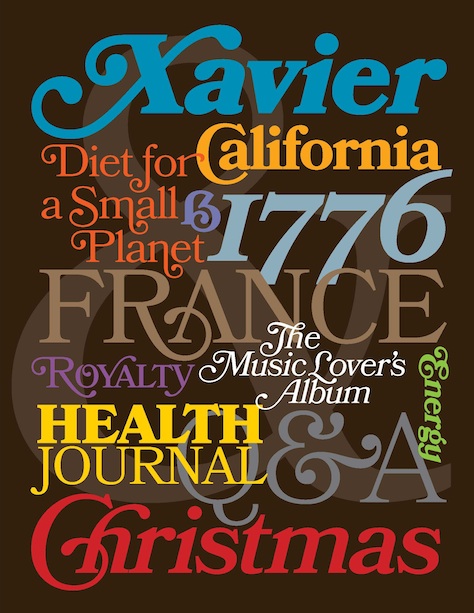
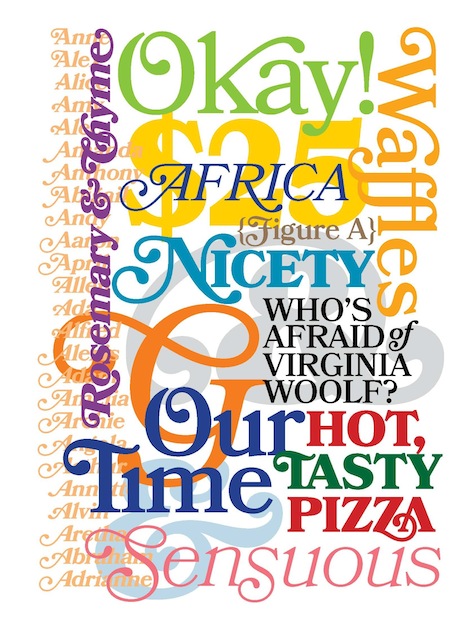
TIF’s Herbie is an homage to Herb Lubalin. The website for The Infamous Foundry describes Herbie as an “uppercase display font with alternates on every character (lowercase), based only on circles and geometric lines. Herbie is inspired by, as the name might indicate, Herb Lubalin’s work and the decorative style and kerning of his era.”